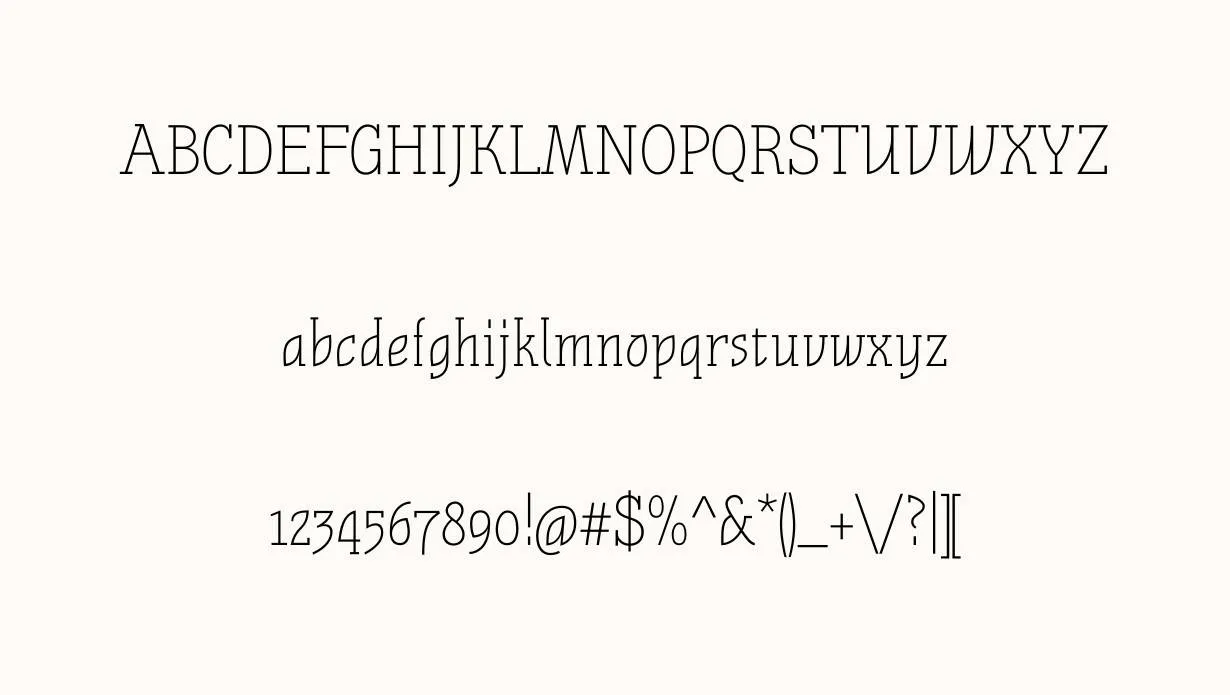
Nautik Font takes inspiration from classic nautical typography and is commonly utilized in projects associated with the ocean, boating, and maritime motifs.
It adds a touch of maritime tradition and a sense of adventure to your design work.
Nautik Font Family
| Name | Nautik Font |
| Designer | Henning Skibbe |